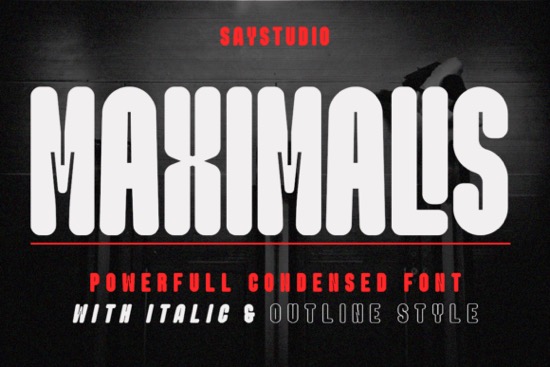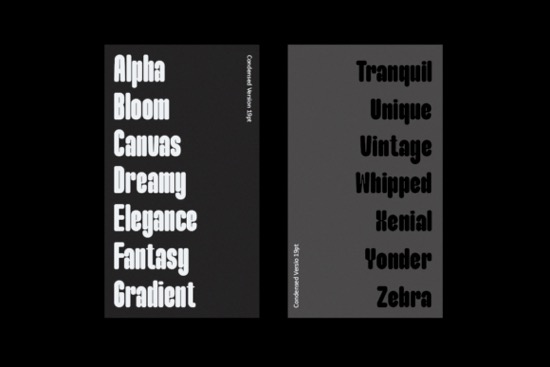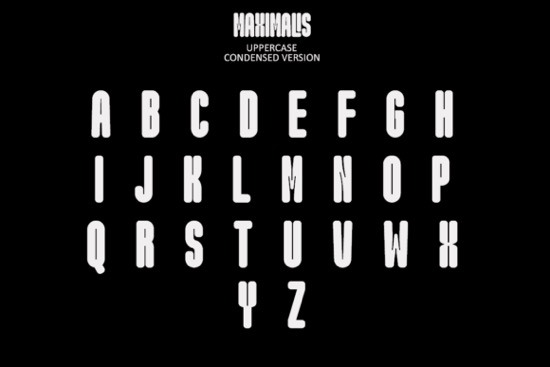
Maximalis Font
Maximalis is a sans serif font that stands out with its classic and cool display style. Its sans characteristics give the font a friendly, traditional look while remaining relevant in modern style make it a display font for easy reading in contemporary use. Available in regular, condensed, outline, and italic styles, the shapes are easy to read and expressive. Its glyph catalog provides an easy-to-compose system for Latin with a tall x-height and tight line spacing.
Maximalis is perfect for all brands, logos, magazines, and films. Different weights give you full scope to explore a wide range of applications, while the outlined font gives a real modern feel to any project.